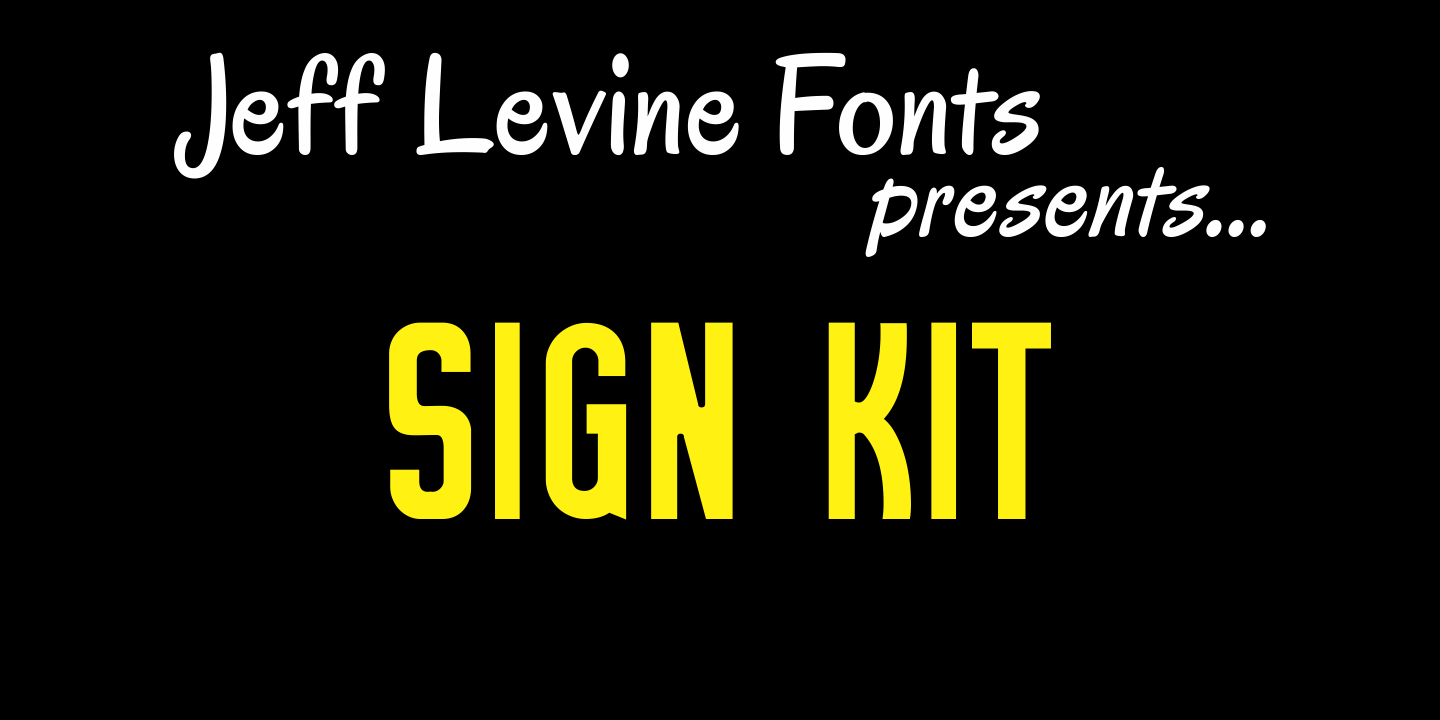
Sign Kit
During trips to the Miami Beach Public Library as a youth, Jeff Levine first caught sight of the signs made with a product called the Webway Sign Cabinet, manufactured by the Holes- Webway company of St. Cloud, MN.
Having purchased an old set, Jeff has carefully re-drawn the alphabet and unique contrasting numbers from the original assortment, adding in an extended character set to his font.